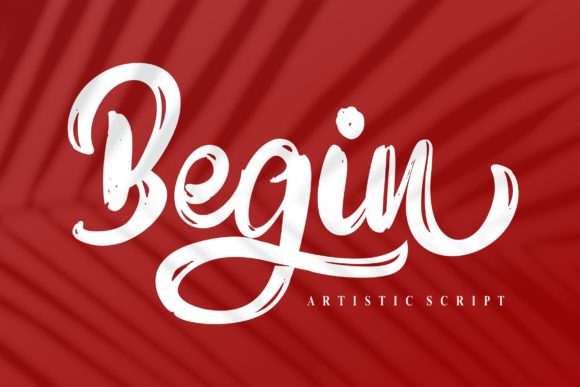
Searching for the perfect font to capture the essence of elegance and sophistication? Look no further than Begin Font, the exquisite script font designed to elevate your designs to new heights. With its enchanting handwritten strokes, Begin Font exudes a charm that is simply irresistible.
Crafted by the renowned FannanStudio, Begin Font is a masterpiece that seamlessly blends tradition and modernity. Each letter dances upon the page with a unique grace, adding a touch of undeniable allure to your creations. Whether you're designing logos that demand attention or quotes that inspire, Begin Font will infuse your work with a timeless beauty that transcends the ordinary.
But Begin Font's allure extends far beyond its aesthetic appeal. This font is a veritable chameleon, capable of adapting to a myriad of design styles with effortless ease. From delicate wedding invitations to bold branding campaigns, Begin Font possesses an uncanny ability to complement and enhance any vision you may have.
So, if you seek a font that ignites creativity and leaves an unforgettable impression, Begin Font is your answer. Let its enchanting strokes guide your designs to greatness, and experience the transformative power of a font that truly embodies the essence of beauty and refinement.